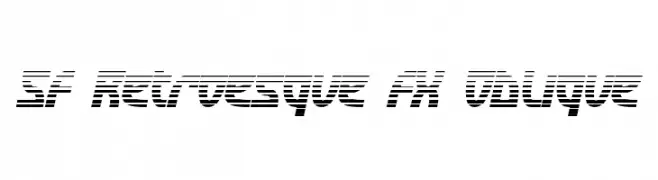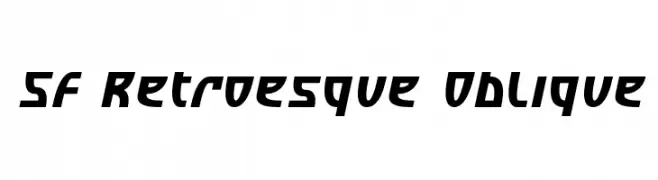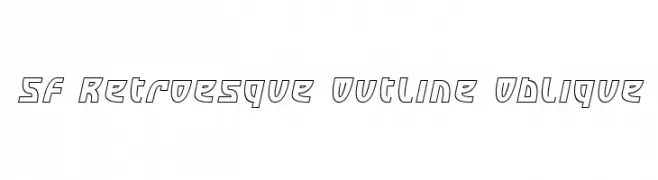
A bold, expanded, and italicized font with a modern and dynamic style.
Bold, 3D italic font with outlined characters and dynamic style.
A bold, italic outline font with a dynamic, superhero-inspired style.
A bold, condensed italic font with a dynamic and modern style.
A bold, expanded font with geometric shapes and sharp angles, perfect for impactful headlines.
A bold, gradient-style font with a futuristic look.
A bold, geometric font with sharp angles and dynamic style.
A bold, italicized font with strong geometric shapes and outlined characters.
A bold, angular font with a modern and dynamic design.
A bold, angular font with a dynamic, slanted design.
A bold, three-dimensional font with a dynamic and powerful style.
A bold, outlined font with a strong geometric structure, perfect for impactful designs.
A bold, expanded, and italicized font with a dynamic and futuristic style.
A bold, italicized font with a dynamic and heroic style.
A quirky, handwritten font with tall, narrow letters and playful strokes.
A playful, bold font with whimsical, cartoon-like characters.
A bold slab serif font with thick strokes and rounded edges, perfect for impactful designs.
A bold, textured font with a distressed, grunge aesthetic.
Superhero silhouette dingbats with dynamic poses.
A playful, hand-drawn font with bold, dynamic characters.
A bold, geometric font with a futuristic and angular design.
A bold, high-contrast serif font with a Western vintage style.
A bold, hollow font with a playful and dynamic style.
A bold, dynamic font with angular, forward-leaning characters.
Superhero silhouette font with bold, action-packed character shapes.
Cartoon superhero-themed decorative font with bold, outlined characters.
A decorative font made of screw-like symbols, offering a mechanical and industrial aesthetic.
A bold, slab serif font with a vintage Western style.
A whimsical and abstract font featuring characters as stylized faces.
A playful font featuring superhero-themed characters for each letter and number.
A playful, handwritten font with tall, narrow letters and consistent stroke width.
A playful, bold font with rounded strokes and a cartoonish style.